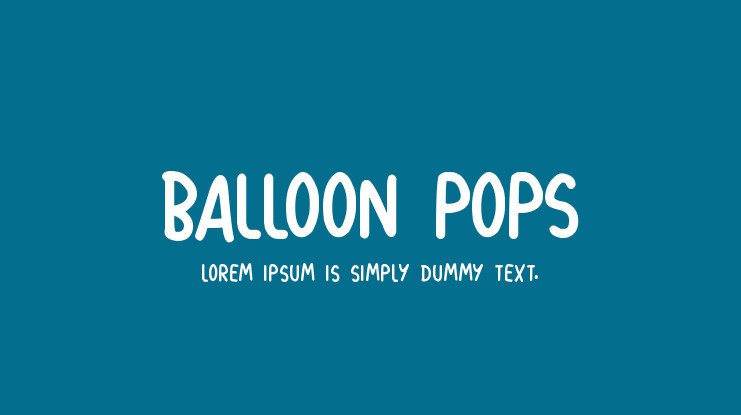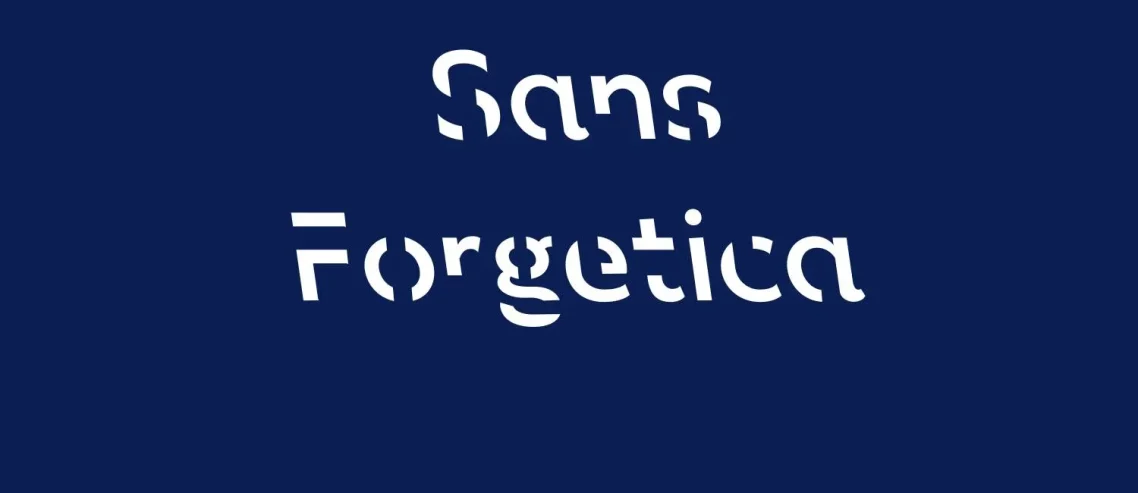
Sans Forgetica Font Free Download
Sans Forgetica, a unique and attention-grabbing font, sets itself apart in the world of experimental typefaces. Created to improve memory retention by incorporating intentional gaps and irregularities. Falling into the category of experimental fonts, Sans Forgetica finds use in educational materials, study aids, and designs where an unconventional and memorable approach to typography is desired. …
Stay Classy Font
Stay Classy Font allows you to use both bold and _italic_ styles. Similar to the script typeface used in The Incredibles, it offers a further-condensed look with a strong and bold quality. This font is sure to impress with its top-notch style and unique characteristics. Discover more about it here to elevate your design game! …
Modern Calligraphy Sweet Mia Font
The modern calligraphy font Sweet Mia is a sleek and elegant serif typeface designed for relatives, commonly referred to as the Cookies Font. This font’s content material cloth fabric writer has taken the idea from the lovelo font. Similarly, that not unusual typeface has positioned at the font. Style Of Modern Calligraphy Sweet Mia Font …
Stooges Races Font
The Stooges Races Font is known for its stylish appearance and is popular for its compatibility with Adobe software. Now, those manufacturers took the all right reserved for this organization. its headquarter placed downtown, north. at the same time, the advent of plant life is installation like celestina font everywhere in the international. Style Of …
Early Gameboy Regular Font Free Download
In the realm of pixelated and nostalgic fonts, Early Gameboy Regular embodies the spirit of early video games. This font is a favorite for retro gaming projects and designs that celebrate the appeal of classic video games. With its pixelated appearance, it adds a nostalgic touch to creative works, fitting into the aesthetic of vintage-themed …
Balloon Pops Font
Balloon Pops Font is a text generator widely known for its unique feature of further condensed and bold characteristics, truly giving you the top-notch impression about it. A completely well-known content material writer from french took the all proper reserved for this stylish typeface just the same as abel font. Style Of Balloon Pops Font …